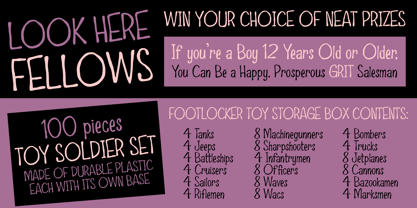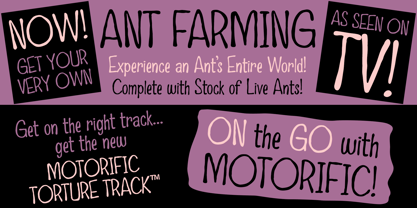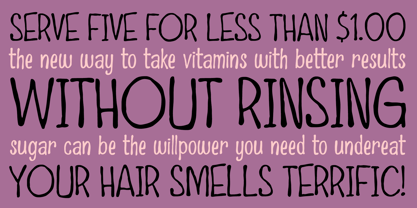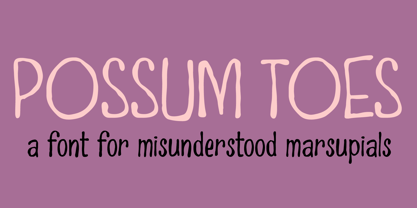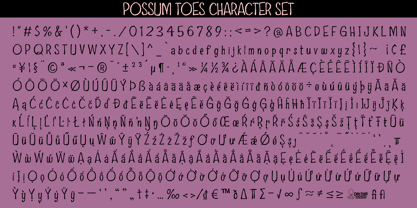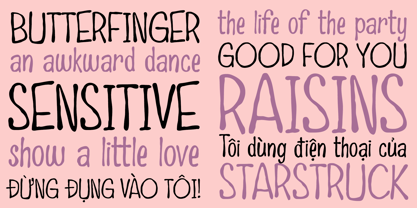
Possum Toes
by One Eyed Squid
The Possum Toes Font Family was designed by Brian J. Bonislawsky, Dave Cohen and published by One Eyed Squid. Possum Toes contains 1 styles.
A font for the misunderstood marsupials, Possum Toes is soft and spindly, delicate and fun...you'll find Possum Toes has its fingers in the frolicking field of funky fonts.
(Possum Toes contains an extended Latin character set with added Vietnamese support.)
Designers: Brian J. Bonislawsky, Dave Cohen